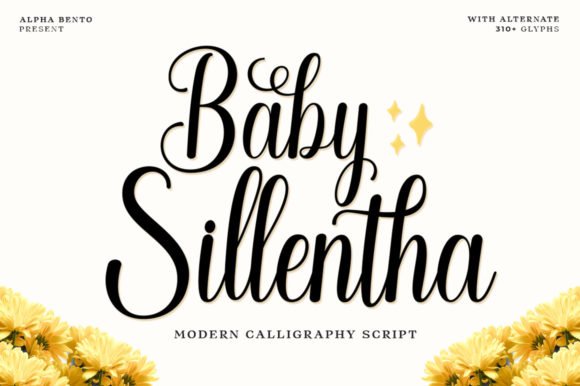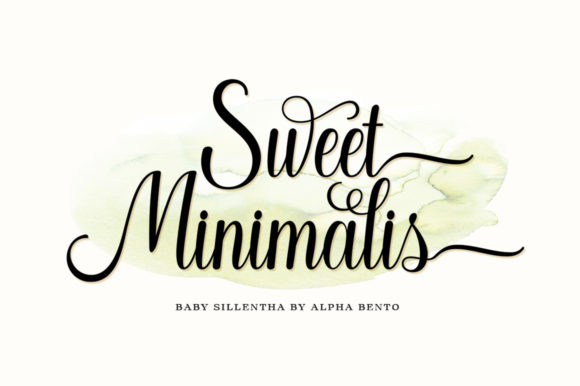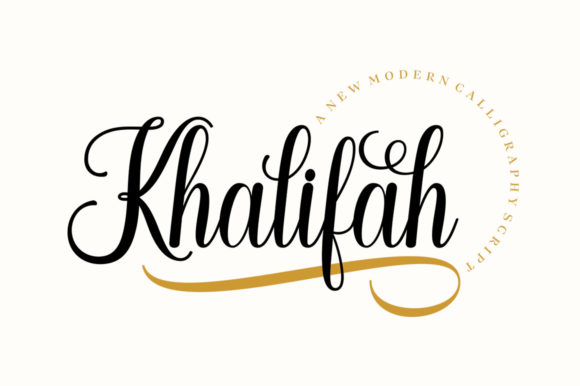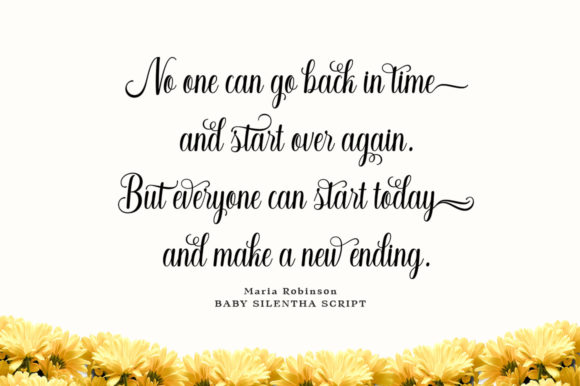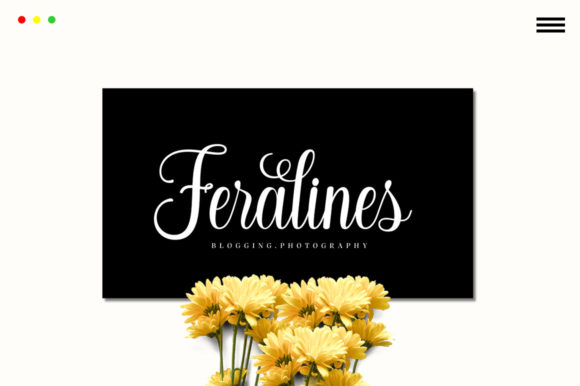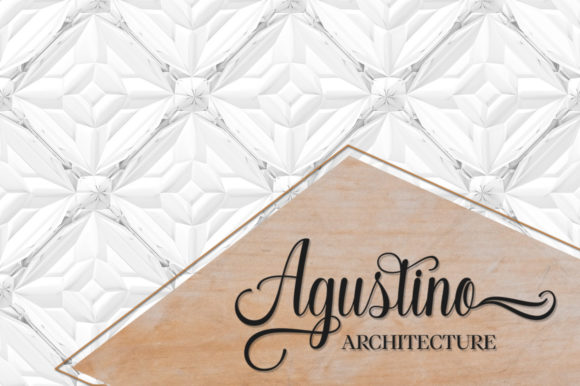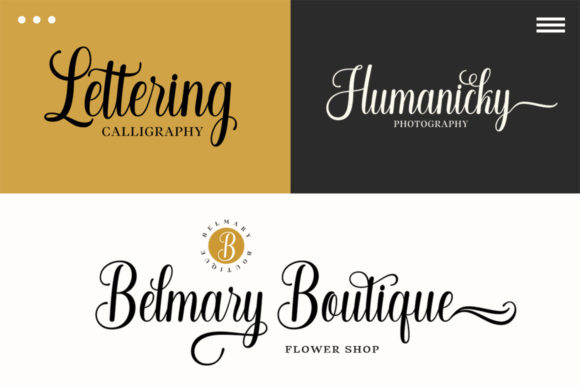
The Perfect Handwritten Touch: Baby Sillentha Script Font
Have you ever stared at a blank canvas, searching for the perfect font to bring your design to life? The struggle is real, but with the right tool, the magic happens. I recall the moment I discovered Baby Sillentha Script Font, and I knew I had found something special. Its unique blend of elegance and playfulness instantly captured my heart.
Baby Sillentha Script Font is a well-balanced and timeless handwritten font that’s perfect for creating eye-catching logos, branding, and quotes. Every letter has a beautiful touch that makes your design come alive. As a designer, you know how challenging it can be to find the perfect font that sets your work apart. Baby Sillentha Script Font is a valuable addition to any designer’s toolkit, offering a level of sophistication and whimsy that’s hard to find elsewhere.
Baby Sillentha Script Font Key Features
- Font Style: Handwritten Script Font
- Unique Characteristics:
- Whimsical, elegant, and playful feel
- Perfect for branding, invitations, and creative projects
Baby Sillentha Script Font Review
Overall, I’m quite impressed with the Baby Sillentha Script Font. It’s a beautiful, elegant script font that’s perfect for adding a touch of sophistication to your designs. ✨
- Unique and elegant design: Baby Sillentha Script Font has a distinctive, flowing style that sets it apart from other script fonts.
- Perfect for invitations and wedding designs: This font is ideal for creating beautiful invitations, wedding stationery, and other special occasion designs.
- Highly customizable: The font comes with a range of OpenType features that allow for advanced styling and formatting options.
- Not suitable for body text: Due to its elegant and flowing style, Baby Sillentha Script Font may not be the best choice for large blocks of body text.
- May require additional formatting: The font’s unique design can make it difficult to read in certain situations, requiring additional formatting to ensure readability.
- Limited language support: Baby Sillentha Script Font may not support all languages or character sets, which can limit its use in international designs.
Overall, I’m impressed with the Baby Sillentha Script Font, but it’s essential to use it judiciously and consider its limitations. With the right use, it can add a touch of elegance and sophistication to your designs. ⚠️
For best results, use Baby Sillentha Script Font for titles, headings, and quotes.
It’s ideal for creating a whimsical and elegant look in wedding invitations, baby shower invitations, and other special occasions.
Alternatives to Baby Sillentha Script Font
Great Vibes is a beautiful, elegant script font perfect for creating a sophisticated and high-end feel. It’s ideal for wedding invitations, luxury brands, and any project that requires a touch of refinement.
Great Vibes compares to Baby Sillentha Script Font in its flowing, cursive style, but it’s more refined and polished. While Baby Sillentha has a softer, more whimsical feel, Great Vibes is more precise and elegant.
Carolyna Pro is a modern, elegant script font designed for high-end branding and advertising. It’s perfect for creating a luxurious and sophisticated atmosphere.
Carolyna Pro is more modern and sleek compared to Baby Sillentha Script Font, with a more angular and precise feel. While Baby Sillentha is softer and more playful, Carolyna Pro is more dramatic and attention-grabbing.
Alex Brush is a elegant, handwritten font perfect for creating a personal and emotional connection with your audience. It’s ideal for branding, advertising, and any project that requires a touch of warmth and personality.
Alex Brush compares to Baby Sillentha Script Font in its flowing, cursive style, but it’s more elegant and refined. While Baby Sillentha has a softer, more whimsical feel, Alex Brush is more sophisticated and polished.
Pacifico is a beautiful, elegant script font perfect for creating a relaxing and calming atmosphere. It’s ideal for branding, advertising, and any project that requires a touch of serenity and tranquility.